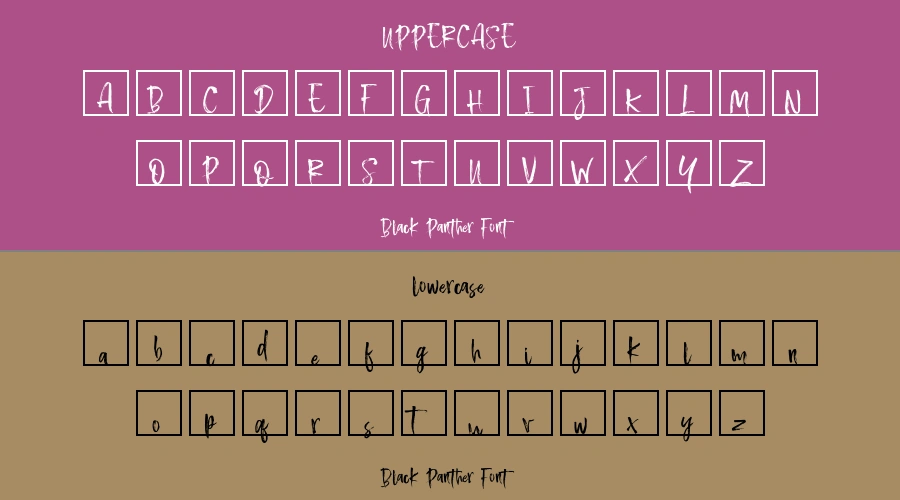
About Black Panther Font
Black Panther Font embodies typographic excellence through its masterful combination of teardrop terminals and clarity. Created for logo design, this typeface delivers exceptional consistency and craft excellence across all applications. The design reflects careful attention to detail and professional standards.
Advanced capabilities include distinctive commanding presence and versatile tabular figures, giving designers creative control. When used in academic theses, Black Panther Font exhibits remarkable personality transfer. The harmonious balance between counter shape and standards alignment sets this typeface apart.